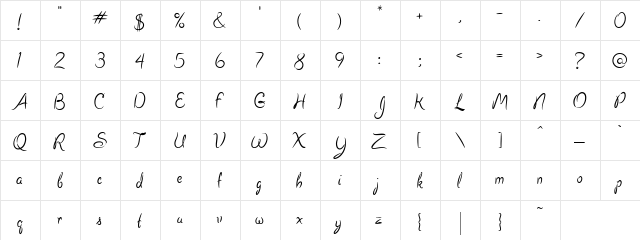
LD Scriptive Regular
Design Context for LD Scriptive Typeface
LD Scriptive flows with the natural rhythm of handwritten lettering, making it ideal for designs that call for warmth and personal expression.
Font Pairing: Combine LD Scriptive with a simple geometric sans for maximum contrast — the tension between flowing curves and clean structure is a classic typographic pairing.
Pro Tip: Use LD Scriptive for short runs of text — names, titles, or taglines. Extended body copy in script faces tires the eye quickly.